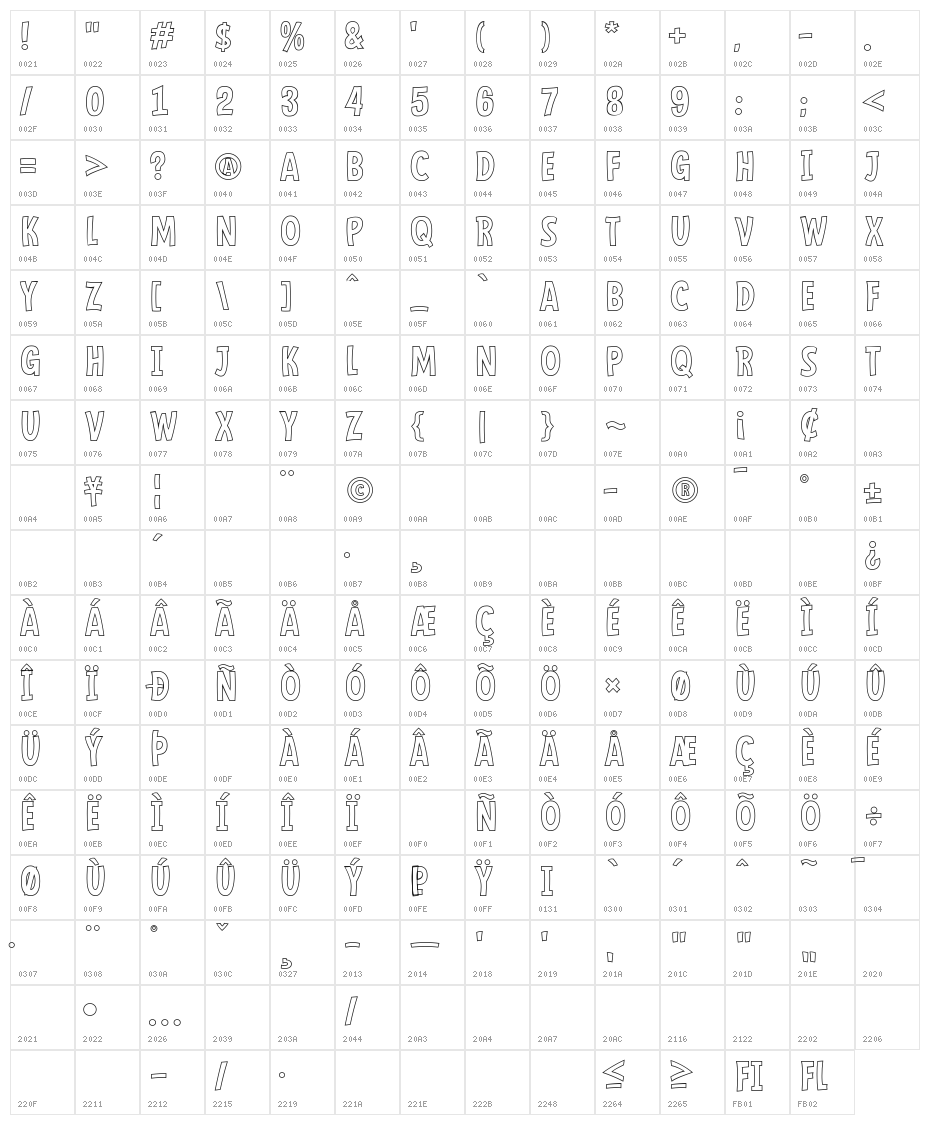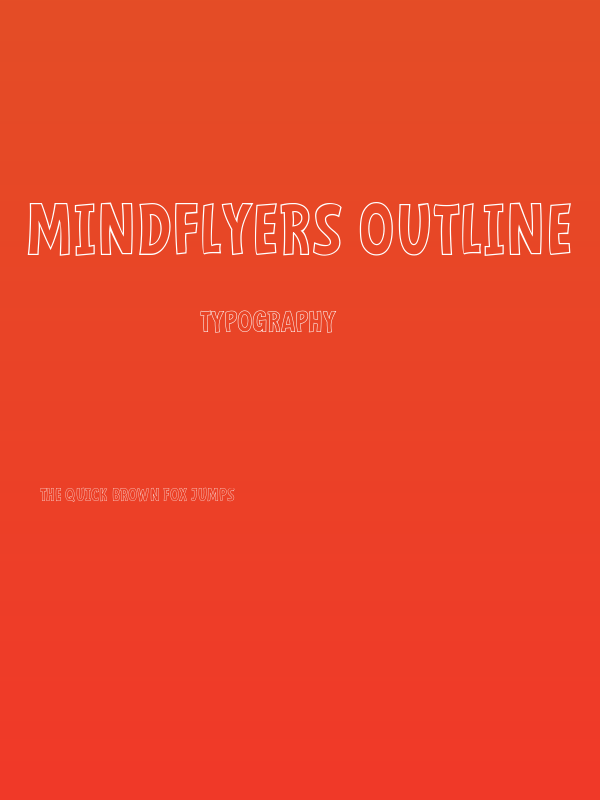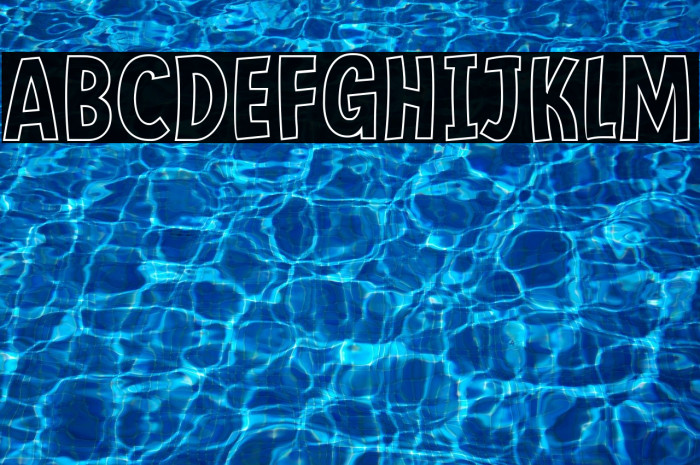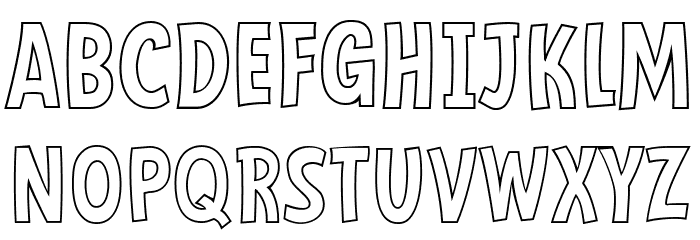
Mindflyers Outline Font
Mindflyers Outline Description
This font features a playful and bold outline style, characterized by its thick, uniform strokes that create a hollow effect. The letters are uppercase and have a slightly irregular, hand-drawn appearance, adding a whimsical and casual feel. The numbers and special characters maintain the same outline style, ensuring consistency across the font. The overall design is eye-catching and suitable for creative projects that require a fun and lively touch. Its distinct style makes it ideal for headlines, posters, and any design that aims to stand out with a bold statement.
| Overall Style | Playful, Whimsical, Fun |
| Use Case | Headlines, Posters, Creative Branding |
| Proposed Projects | Ideal for children's book covers, playful posters, party invitations, and creative branding projects. |